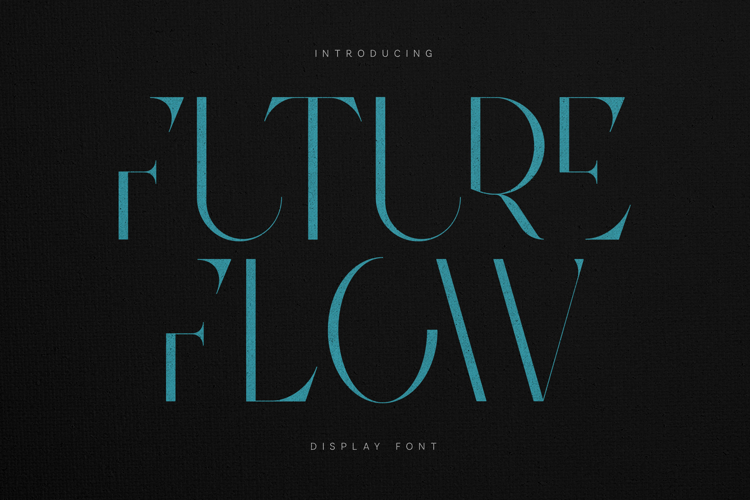
Future Flow Modern Elegant Display Serif Font
Future Flow is a modern display serif typeface designed with elegant proportions, fluid curves, and refined contrast. The font blends contemporary typography with subtle classical influences, creating a distinctive serif style that feels both sophisticated and forward-looking.
The letterforms are carefully shaped with smooth transitions, sharp terminals, and flowing strokes, giving the typeface a strong visual rhythm and a unique typographic personality. The balance between structure and movement allows Future Flow to stand out while maintaining clarity and readability.
Future Flow works beautifully in editorial layouts, branding systems, logo design, magazine covers, posters, packaging design, visual identity systems, social media graphics, and modern typographic compositions where expressive serif lettering adds character and elegance.
The typeface includes uppercase letters, lowercase letters, numerals, punctuation, symbols, and extended multilingual support, allowing designers to use the font across a wide range of languages and creative projects.
Its display-oriented design makes Future Flow especially effective in headlines, titles, and large-scale typography, where the elegant shapes and distinctive curves create a strong visual impact.
With its combination of modern refinement, expressive curves, and elegant serif structure, Future Flow is designed to elevate contemporary typography and bring a distinctive voice to modern design projects.